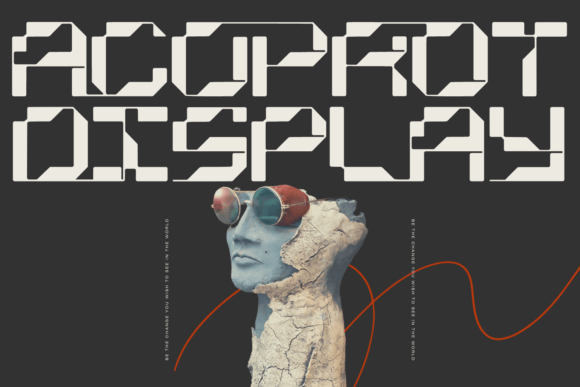
Discover the Charm of a Pixelated Glitch: Acoprot Display Font
Have you ever been stuck in a creative rut, searching for that one element to take your project from ordinary to extraordinary? It’s a feeling we’ve all been there, and it’s often in those moments that we stumble upon something truly special. For designers and creatives, the right font can be the game-changer that sets their work apart from the rest.
Enter the Acoprot Display Font, a unique and captivating pixel-style display typeface that’s sure to add a touch of whimsy to any design. Characterized by its deliberate imperfections and attention to detail, this font is the perfect addition to any creative project looking to stand out from the crowd.
With its simplicity and original form, the Acoprot Display Font is a valuable asset for designers seeking to add a touch of personality to their work. Whether you’re working on a futuristic sci-fi project or a retro-inspired campaign, this font is sure to make your ideas shine.
Acoprot Display Font Key Features
- Unique Characteristics: Features a unique, futuristic design aesthetic with clean lines and geometric shapes, making it perfect for modern and tech-savvy branding.
- Kerning and Ligatures: Includes advanced kerning and ligature features, ensuring smooth text rendering and a professional appearance.
Acoprot Display Font Review
Overall, I think the Acoprot Display Font has some great qualities, but also a few areas where it falls short. Let’s start with the good stuff: ✨ The font has a very unique and eye-catching design that’s perfect for making a statement. The bold lines and angular shapes make it ideal for use in headings, titles, and other high-impact text.
✨ Another thing I like about this font is its versatility. It’s available in a wide range of weights and styles, making it easy to find the perfect fit for your project. Whether you’re looking for a clean and modern look or something more dramatic and edgy, Acoprot has got you covered.
⚠️ One of the main drawbacks of this font is its limited legibility at small sizes. While it looks great at larger sizes, it can become quite difficult to read when scaled down. This might be a problem if you need to use the font for body text or other smaller text elements.
⚠️ Another issue I have with Acoprot is its lack of support for some languages. If you need to display text in languages that use non-Latin scripts, you might find that this font doesn’t have the necessary glyphs to display them correctly.
While the Acoprot Display Font has some limitations, I think it’s still a great choice for projects where you need a bold, eye-catching font. With a little planning and consideration, you can work around its limitations and get some amazing results. Just be sure to test it out thoroughly before committing to a large-scale project.
For best results, use the font in headings and titles to create a bold and eye-catching design.
Acoprot Display Font is ideal for:
- Creating bold and eye-catching headings and titles.
- Designing posters and flyers.
- Developing branding and marketing materials.
Remember to use the font consistently throughout your design to create a cohesive and professional look.